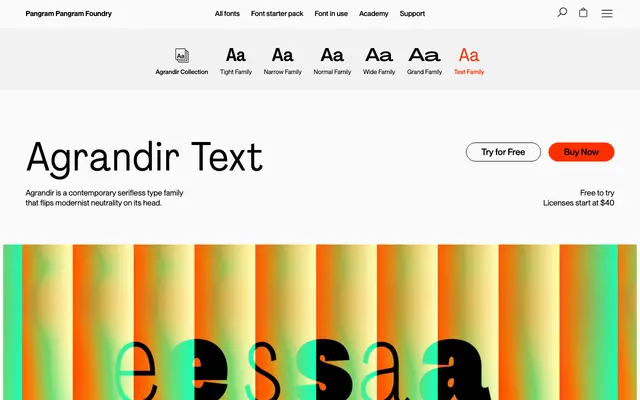
Agrandir Text specimen from Pangram Foundry
The four-style text cut of Alex Slobzheninov's Agrandir, tuned for running body copy.
The Text cut of Agrandir by Alex Slobzheninov, drawn for body sizes rather than display. Four styles cover Regular and Bold with matching italics, sharing the family's alternates and presets so a website or magazine can run Agrandir display headlines into Agrandir Text paragraphs without breaking voice.